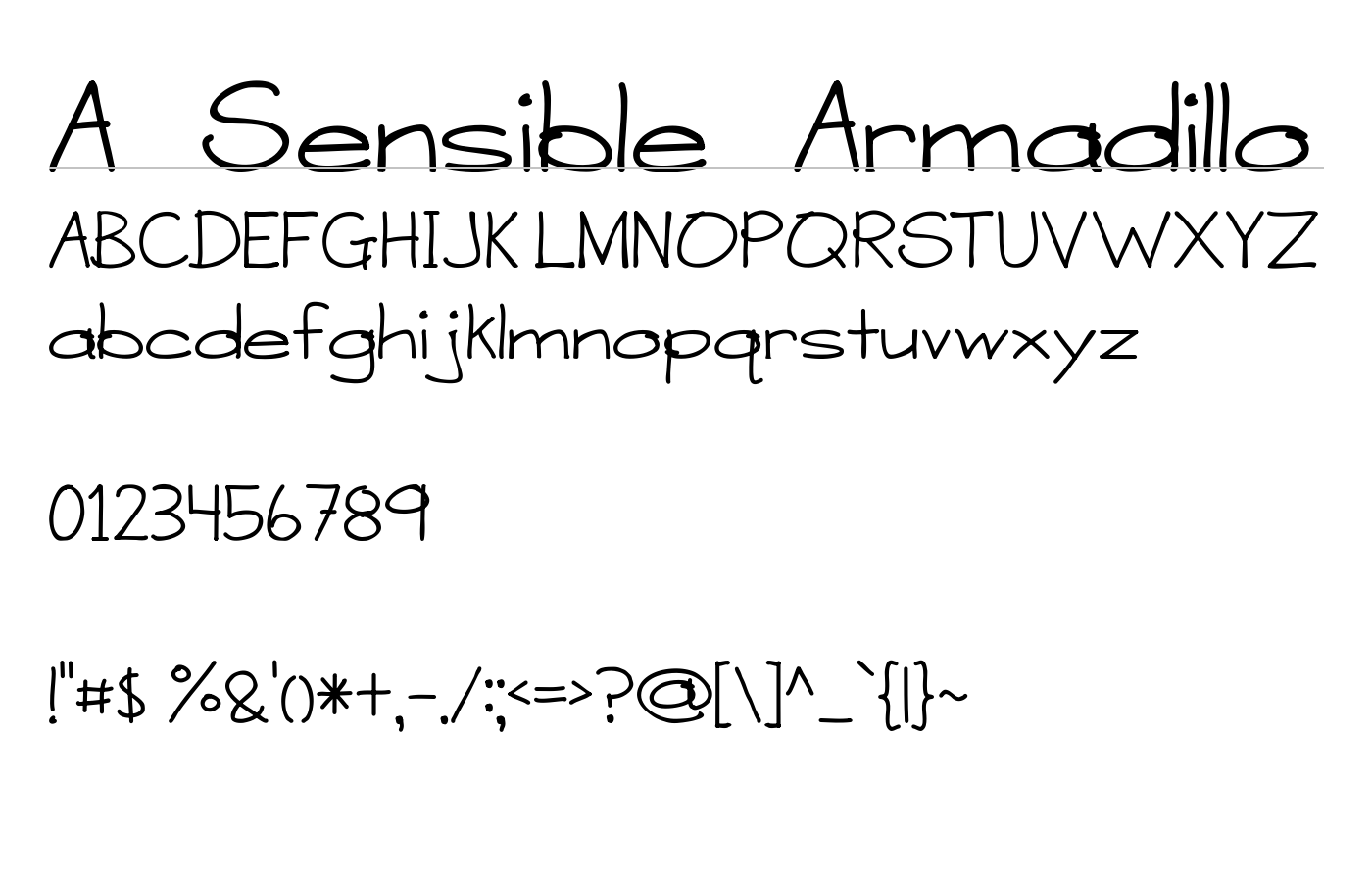
A Sensible Armadillo is a playful, hand-drawn sans serif font that feels casual and friendly with its irregular, slightly whimsical letterforms. Its light stroke weight and open, airy spacing give it an approachable and informal personality, making it ideal for creative projects, children’s materials, and fun branding. This font works well in headlines and display text where a natural, handwritten charm is desired.
A Sensible Armadillo Font
About A Sensible Armadillo Font